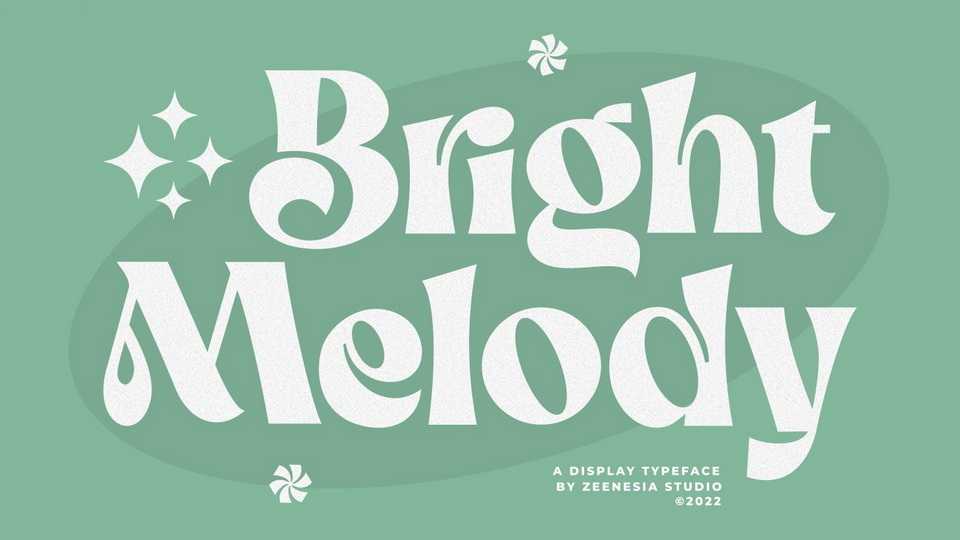
Download Bright Melody font, a vintage style serif typeface with strong character and soft features. Modern and classic in the same time, Bright Melody font is a very versatile font that works great in large sizes.
Designer: Zeenesia Studio